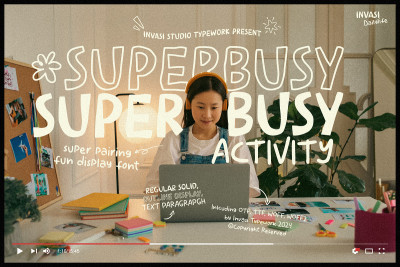
Superbusy Activity - Fun Pairing Font
Designers reaching for Superbusy Activity - Fun Pairing find a typeface that holds up across diverse media — print, web, and motion.
Its proportions suit a wide range of uses: website headers, printed flyers, restaurant menus, annual reports, and product packaging.